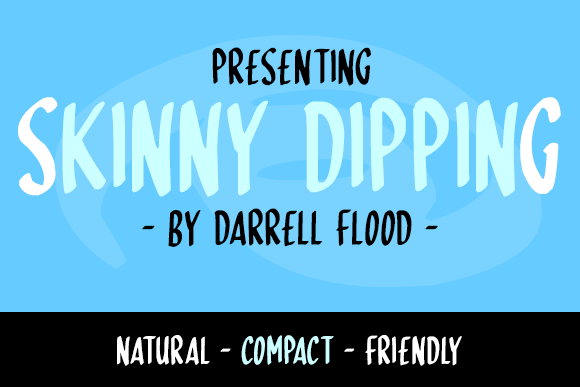
Skinny Dipping
Skinny Dipping Font
Skinny Dipping is a compact, hand-drawn font in a tall/thin style. This font has letterforms that are clean and crisp, formed from angled marker lines to give your designs an overall sleek and stylized appeal.